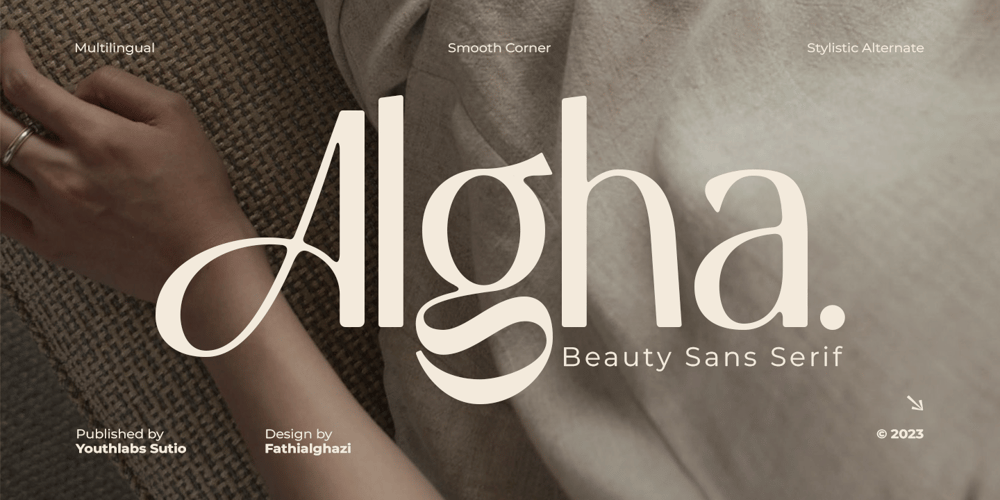
Algha Font Family was designed by Fathi Al Ghazi and published by Youthlabs. Algha contains 1 styles and family package options. Introducing Algha Beauty Sans Serif Font. Algha inspired from cottagecore which prioritizes beauty and elegance. Algha has an obtuse angle which means that beauty is not confined to the point of view. Algha is suitable for your needs that require beauty. Algha can be worn simply or with ornaments.What’s The Feature ?- 3 Stylistic Alternate Set- Stylistic Ligature- Smooth Corner- Multilingual Support- Separate Alternate Files- Opentype SupportNeed to test words in this font? Just type the box below, and see what it looks like- For more information on accessing alternative flying machines, you can see this link (http://adobe.ly/1m1fn4Y)- If you want to use this font on canva, you can see the tutorial in this link (https://www.youtube.com/watch?v=Rwhf1O3Dv78&ab_channel=tomcunningham)Feel free to message me if you have any question.Thanks, stay safe and healthy, and have a nice day.